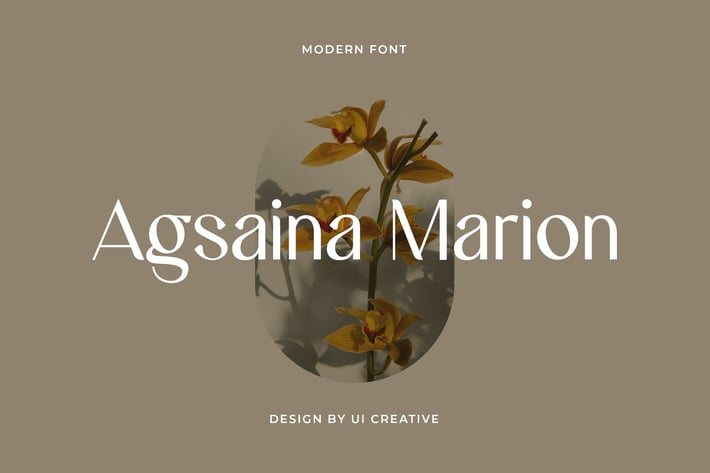
Agsaina Marion Modern Classic Serif Font
Introducing our new product the name is Agsaina Marion Modern Classic Serif Font. Modern Classic Serif font that feels beautiful classy, elegant, and modern. This font is perfectly suited for a wide variety of projects, such as signature, stationery, logo, wedding, typography quotes, magazine or book cover, website header, clothing, branding, packaging design, and more. Also for fashion-related branding or editorial design and displays both masculine and feminine qualities.